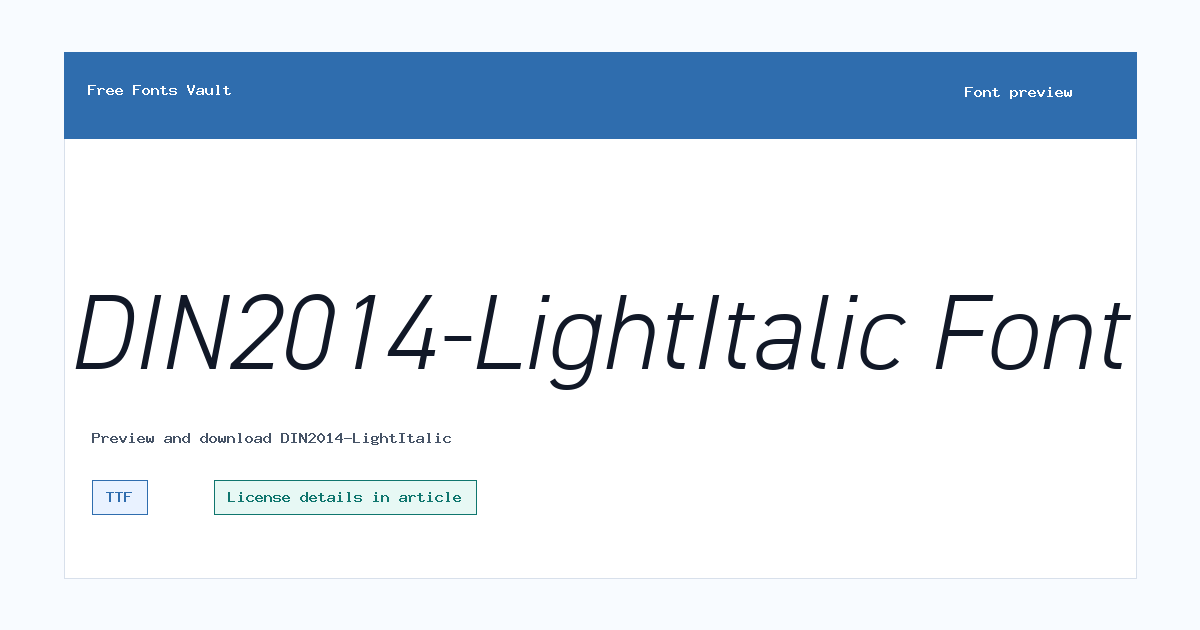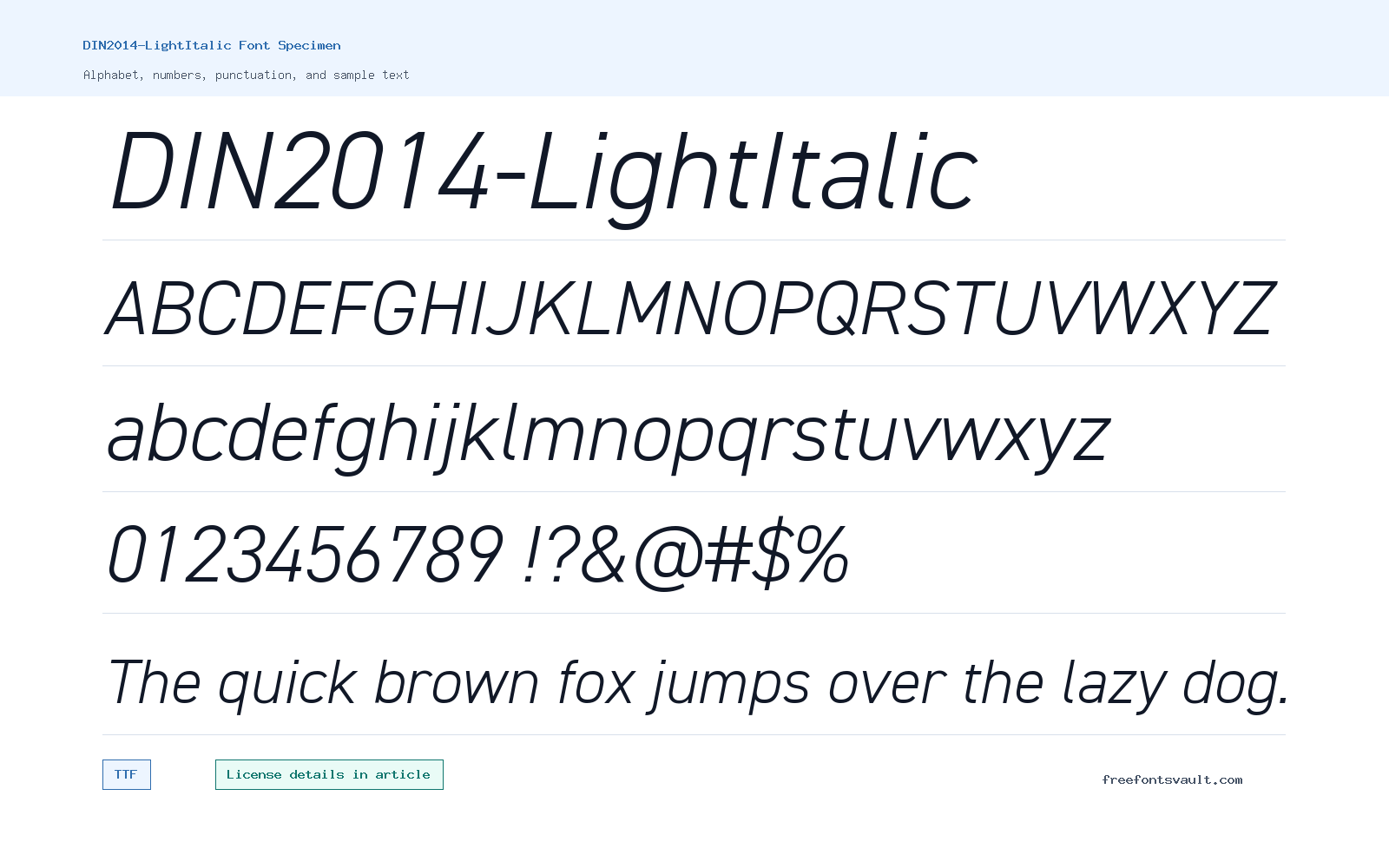
DIN2014-LightItalic
DIN2014-LightItalic Font
• Designer Vasily Biryukov
• Foundry ParaType Ltd
DIN2014 Light Italic is a light italic TrueType font credited to Vasily Biryukov and ParaType Ltd. It is useful for clean accents, captions, side notes, short headings, and restrained editorial-style text.
About DIN2014 Light Italic
DIN2014 Light Italic is listed as a TTF file named DIN2014-LightItalic.ttf with italic style and 300 weight. The lighter stroke gives it a quieter texture than a regular or bold cut, while the italic angle adds motion. That combination can work well for secondary text, captions, pull quotes, labels, and design accents.
Light italic fonts need careful contrast. They can look polished at medium or large sizes, but they may become weak on busy images, low-contrast backgrounds, or very small captions. Preview your actual words, then test the font against the colors and background you plan to use. Increase size or contrast if the letters feel too delicate.
Use DIN2014 Light Italic as part of a larger type system rather than as the only font in a layout. Pair it with a regular upright text face for paragraphs and use the italic style for emphasis, metadata, captions, notes, or short visual accents. This keeps the page readable while still giving selected text a different tone.
• Light 300 weight with italic style
• Designer credit listed as Vasily Biryukov
• Foundry credit listed as ParaType Ltd
• Best used as an accent or secondary text style
• Captions, side notes, pull quotes, and short labels
• Editorial layouts, presentation graphics, and clean accents
• Lightweight headings where a softer italic tone is needed
• Pairing with an upright regular font for readable hierarchy
• Testing delicate text against real colors and backgrounds
Test DIN2014 Light Italic with your real caption, heading, or note text. Keep contrast high, avoid busy backgrounds, and compare it at the final size. For long reading sections, pair it with an upright text font and use the italic style only where emphasis or a lighter accent is needed.
Is DIN2014 Light Italic bold?
No. It is listed with a 300 weight, which is a light weight, and it uses an italic style.
Who designed DIN2014 Light Italic?
The designer credit is Vasily Biryukov, with ParaType Ltd listed as the foundry.